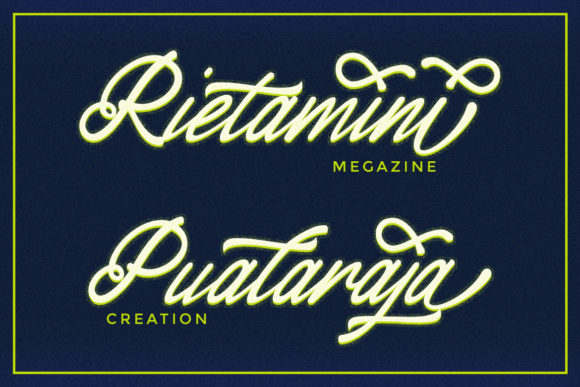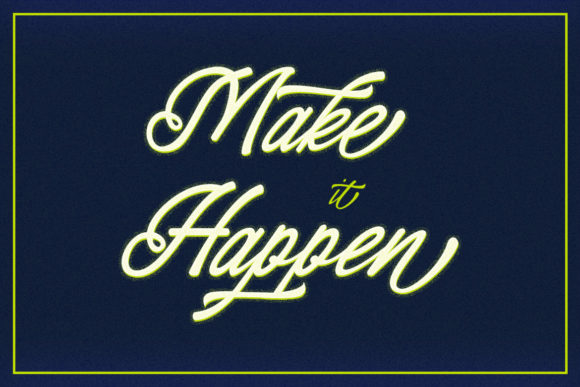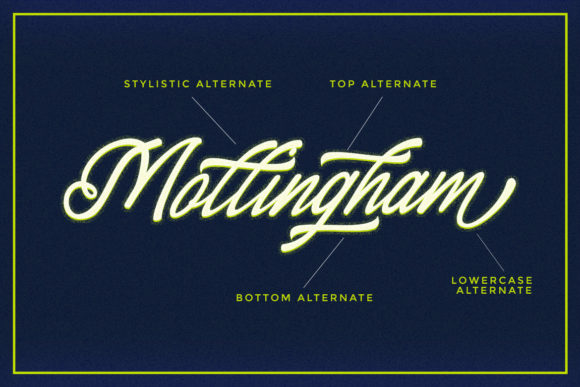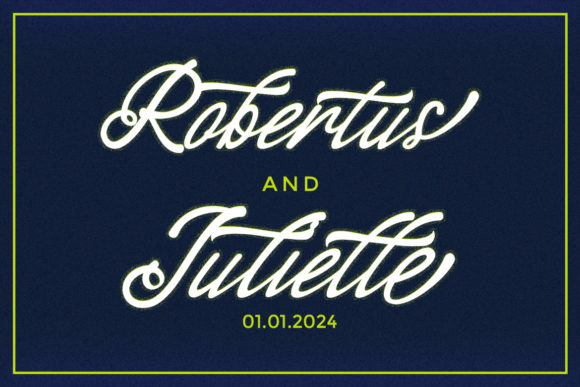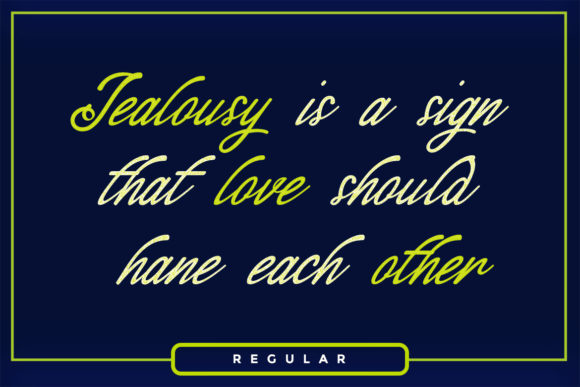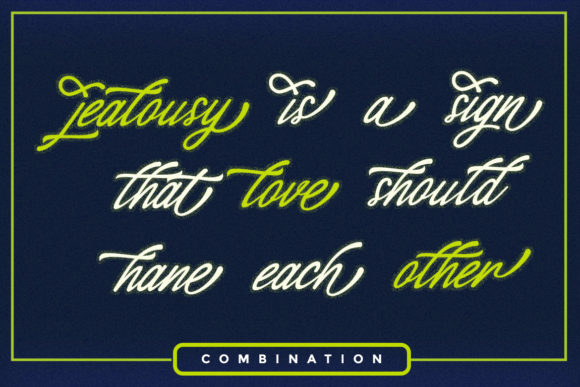
Introducing England Script Font: The Ultimate Retro Signage Companion
Are you a designer or crafter looking for a font that can add a touch of nostalgia and sophistication to your projects? Look no further than the England Script Font. This versatile and stylish font is perfect for creating eye-catching typographical layouts for a wide range of applications, from t-shirts and signage to logos, headlines, branding, packaging, and more.
A Bold and Clean Look with Endless Variations
The England Script Font boasts a bold and clean look that is reminiscent of classic signage fonts from the past. Its unique design features many variations on each character, giving you the creative freedom to experiment with different typographical layouts with ease and speed. Whether you’re looking to create a vintage-inspired logo or a modern signage design, this font has got you covered.
Key Features of England Script Font
- Bold and clean design: The England Script Font features a sturdy and well-defined design that is perfect for creating eye-catching headlines and signage.
- Many variations on each character: With multiple variations on each character, you can create unique and interesting typographical layouts that showcase your creativity.
- Easy to use: The font is designed to be user-friendly, making it easy to incorporate into your design projects.
- Versatile: The England Script Font is suitable for a wide range of applications, including t-shirts, signage, logos, headlines, branding, packaging, and more.
The England Script Font is an ideal choice for designers and crafters who want to add a touch of elegance and sophistication to their projects. Whether you’re creating custom apparel, designing signage for a business, or developing a brand identity, this font is sure to impress. Its versatility and ease of use make it a valuable addition to any design toolkit.
Use Cases for England Script Font
- T-shirts and apparel: Create custom t-shirts, hoodies, and other apparel with unique and eye-catching typographical designs.
- Signage and advertising: Use the England Script Font to create bold and attention-grabbing signage for businesses, events, and promotions.
- Logo design: Develop a professional and stylish logo for your business or brand using this versatile font.
- Headlines and branding: Add a touch of elegance and sophistication to your headlines and branding materials with the England Script Font.
- Packaging and labeling: Use the font to create eye-catching packaging and labeling for products and merchandise.
In conclusion, the England Script Font is a powerful and versatile design tool that is perfect for designers and crafters looking to add a touch of nostalgia and sophistication to their projects. With its bold and clean look, many variations on each character, and ease of use, this font is sure to become a valuable addition to your design toolkit. So why wait? Download the England Script Font today and start creating stunning typographical layouts for your next project!